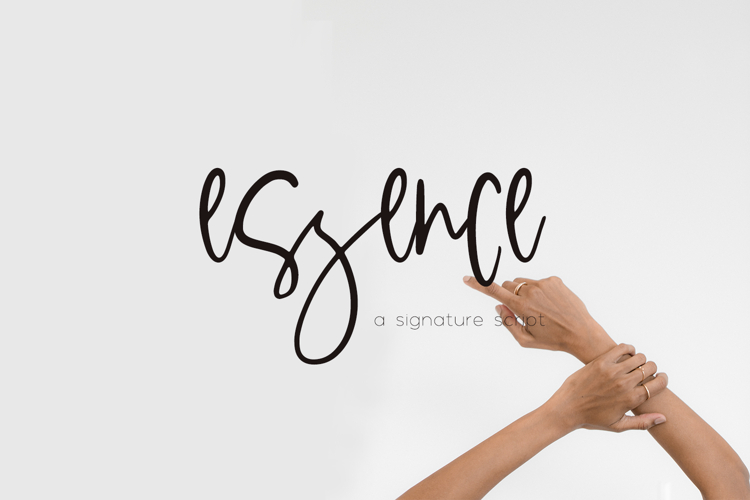
Say hello to Essence Script, a handwritten signature style font. This stylish font features a messy, casual look. Its character set is full of alternates and ligatures to truly enhance the handwritten style.
Essence Script is best for:
- website design + website accents - think design blogs, travel blogs, fashion blogs, & more
Essence includes:
- 26 lowercase alternate characters
- 15 ligatures - bb, cc, dd, ee, ff, gg, ll, mm, nn, oo, pp, rr, ss, tt